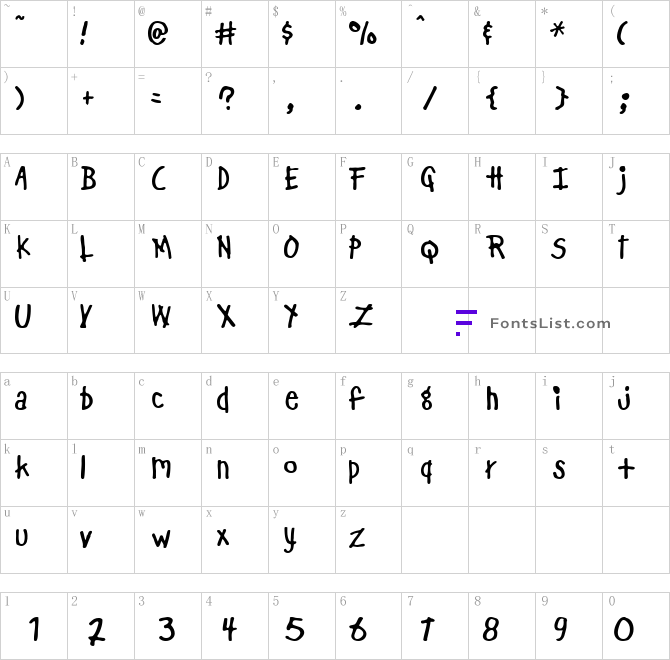
- Font Name:BadDog
BadDog.ttf is a very beautiful artistic font, BadDog.ttf is widely used in the design and printing of various books and pictures,BadDog.ttf has a strong visual impact,BadDog.ttf is a commonly used font in newspapers, magazines and books, and is used in posters, e-commerce Poster design, store design, logo design, font design and other fields.BadDog.